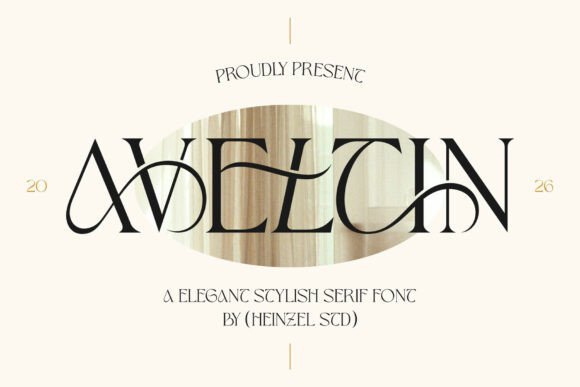
Discovering the Elegance of Aveltin Font
As a designer, there’s nothing quite like the thrill of stumbling upon a new font that captures the essence of a project’s vision. It’s the moment when the words flow effortlessly onto the page, and the entire design comes together in perfect harmony. For me, that moment arrived when I discovered the Aveltin Font. Its refined and elegant serif design is a masterclass in timeless sophistication, blending high contrast strokes with beautiful curves to create a truly unique visual experience.
Aveltin Font is designed to elevate luxury branding, editorial layouts, fashion headlines, and sophisticated logo design to new heights. With its distinctive letterforms, it’s the perfect tool for designers looking to add a touch of artistic flair to their work. Whether you’re creating a high-end fashion magazine or a luxury lifestyle brand, Aveltin Font is sure to make a lasting impression.
Aveltin Font Key Features
- Unique Characteristics: Aveltin Font features a unique blend of modern and vintage elements, making it a versatile choice for designers and artists looking to add a touch of elegance and sophistication to their work.
- Font Weight: Aveltin Font comes in multiple weights, including light, regular, bold, and extra bold, allowing users to choose the perfect weight to match their design needs.
A Review of Aveltin Font
Aveltin Font is an interesting addition to the world of typography. Here are my thoughts on what makes it shine, and where it falls short.
- The unique blend of modern and traditional styles creates a distinctive look that’s hard to ignore.
- The font’s versatility makes it suitable for a wide range of applications, from branding to editorial content.
- The weight and line variation options provide ample flexibility for designers to create visually appealing combinations.
- The font may appear cluttered or overwhelming when used extensively, particularly in smaller sizes or body text.
- The limited language support may be a concern for designers working with non-Latin scripts.
- The font’s unique style may not be to everyone’s taste, which could limit its adoption.
Overall, Aveltin Font is an attention-grabbing choice that can elevate a design. However, its limitations should be carefully considered before committing to its use. With thoughtful application, it can be a powerful tool in a designer’s arsenal.
For the best results, use Aveltin Font in designs that require a modern and elegant look. It’s ideal for:
- Business cards and letterheads.
- Brochures and flyers.
- Branding and logo designs.
Alternatives to Aveltin Font for Designers
Montserrat is a sans-serif font designed for digital media. It’s ideal for use in headings and titles due to its geometric and modern appearance. Montserrat is more geometric and clean compared to Aveltin Font, which has a more rounded and elegant feel. Use Montserrat for modern and minimalist designs.
Lato is a sans-serif font designed to work well in a variety of contexts. It’s highly legible and suitable for both body text and headings. Lato has a more rounded and friendly feel compared to Aveltin Font, making it ideal for use in designs that require a softer and more approachable tone. Use Lato for designs that need a balance between modernity and approachability.